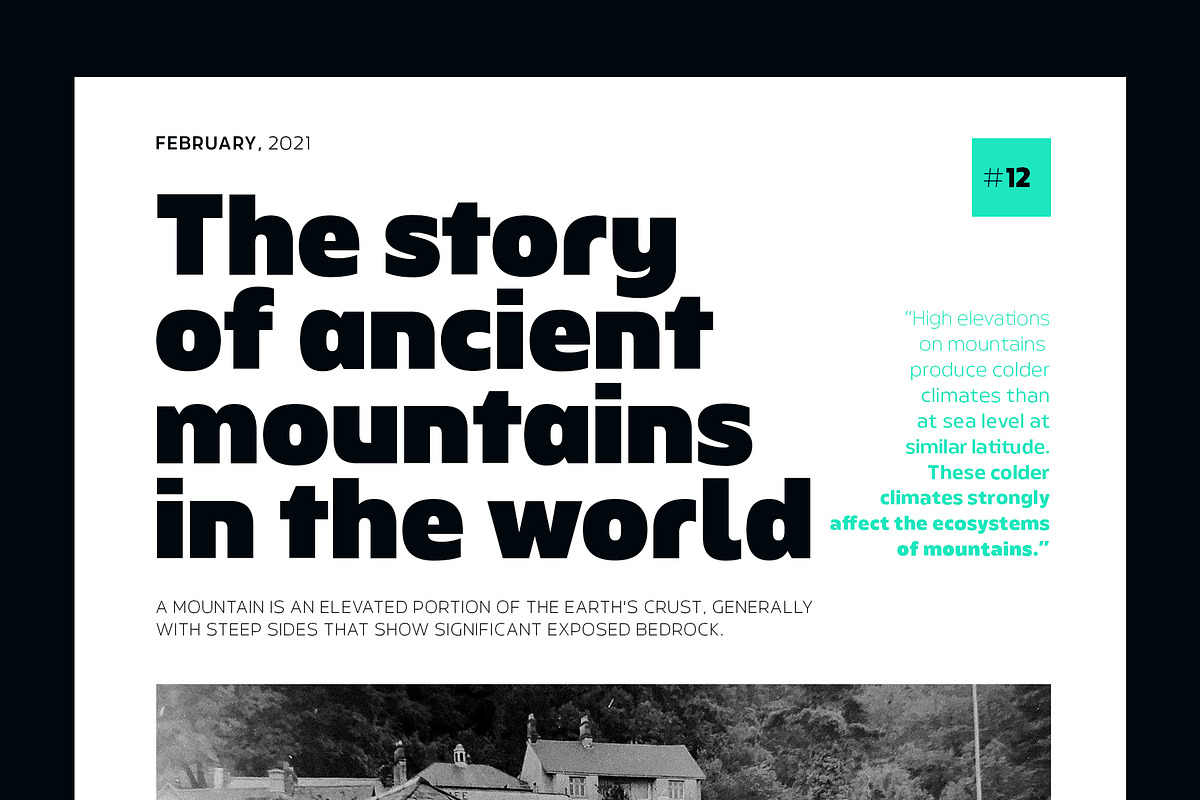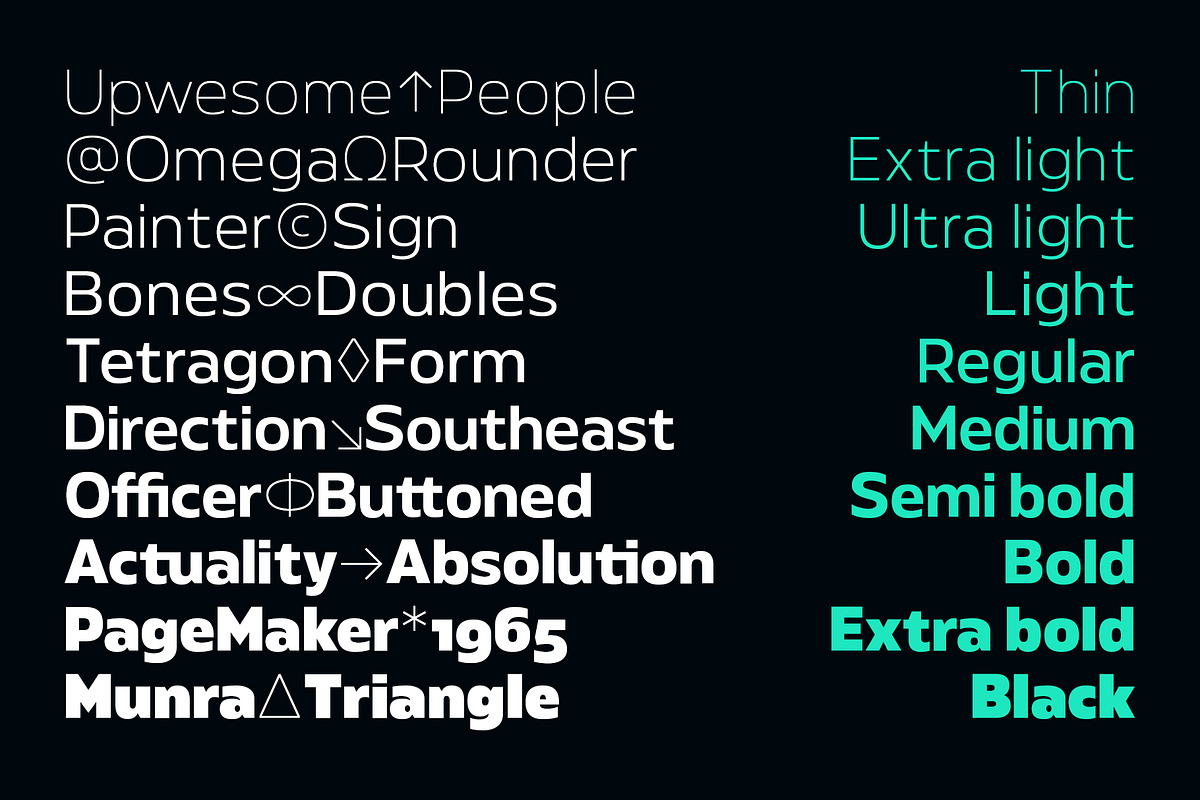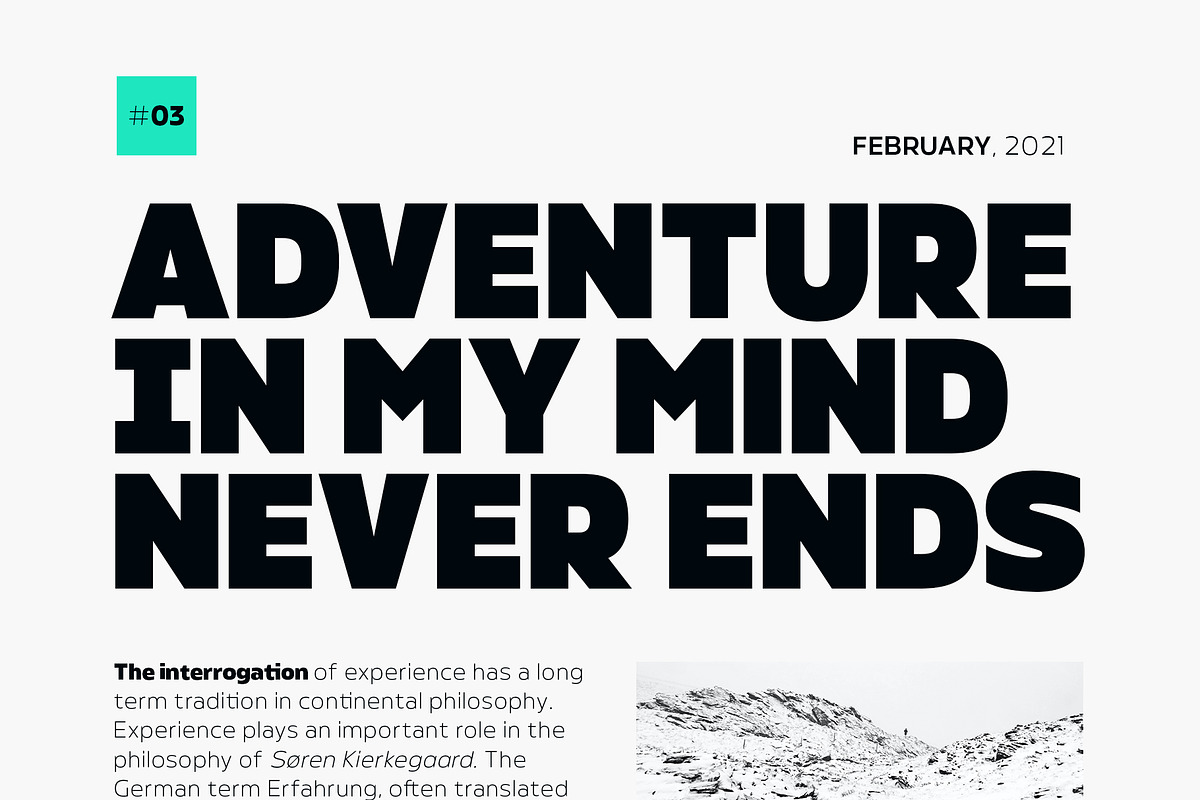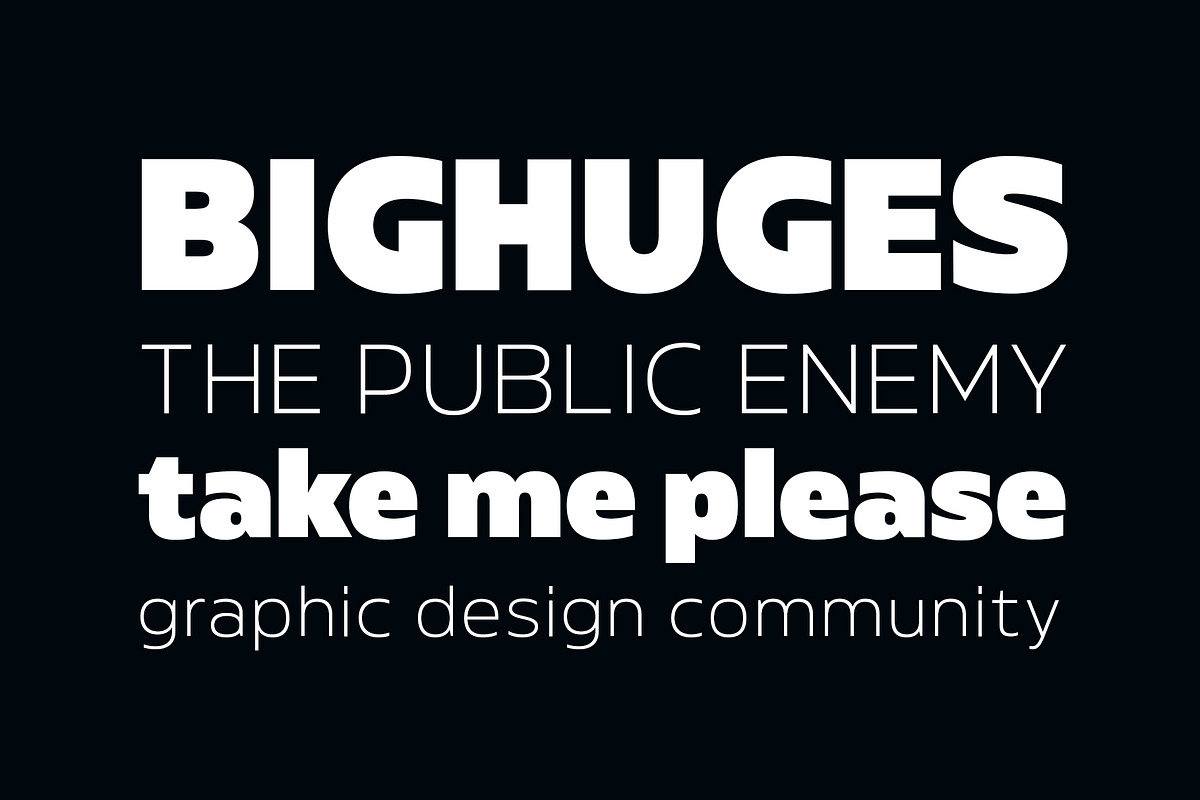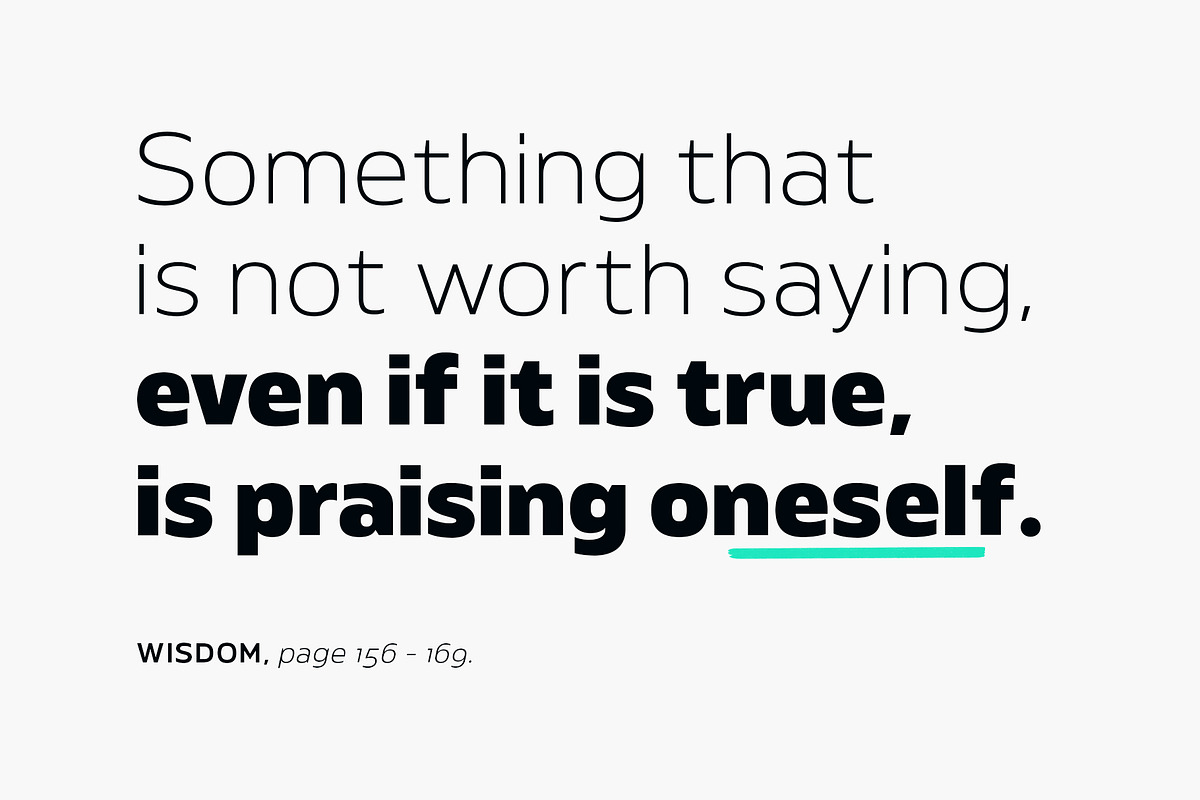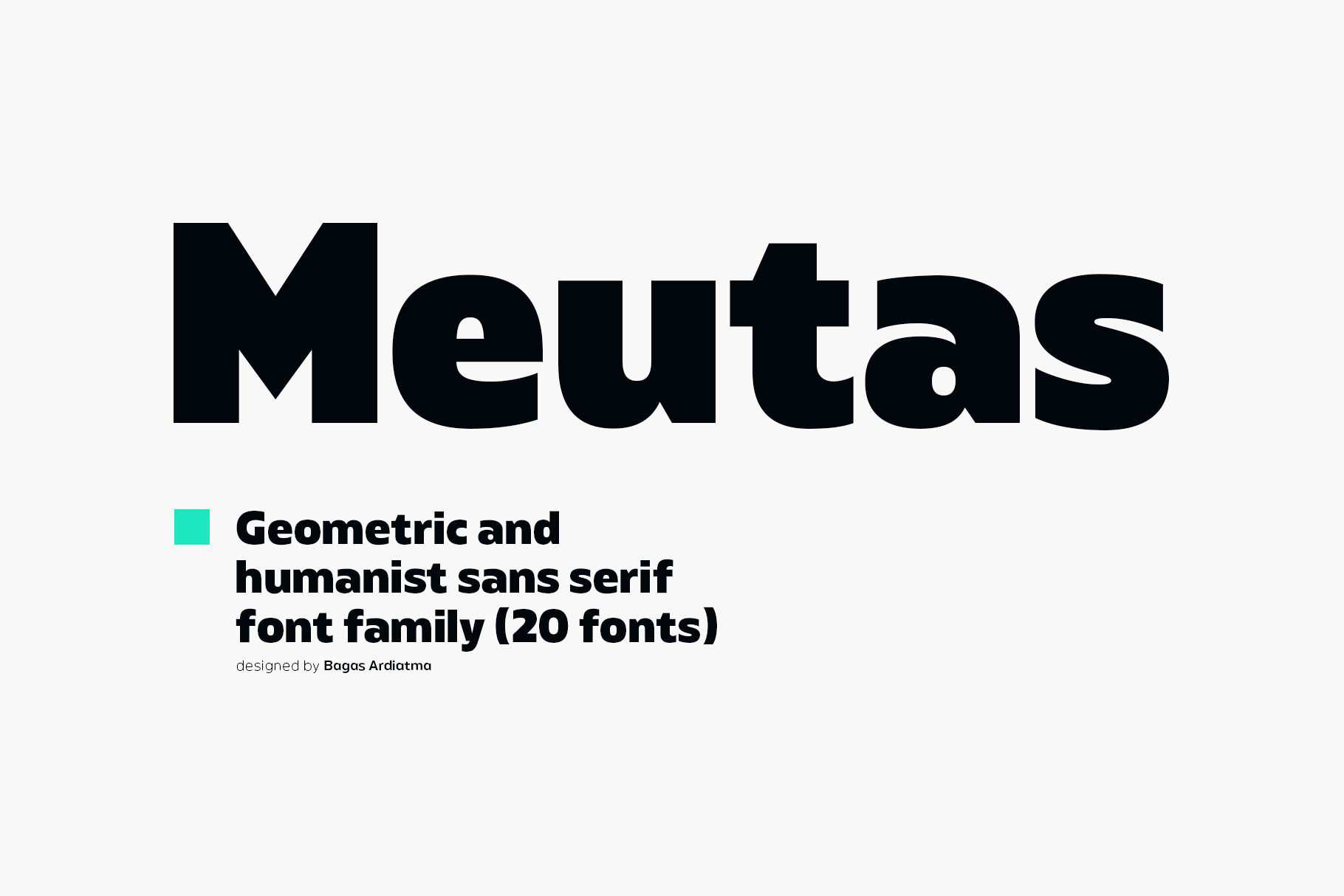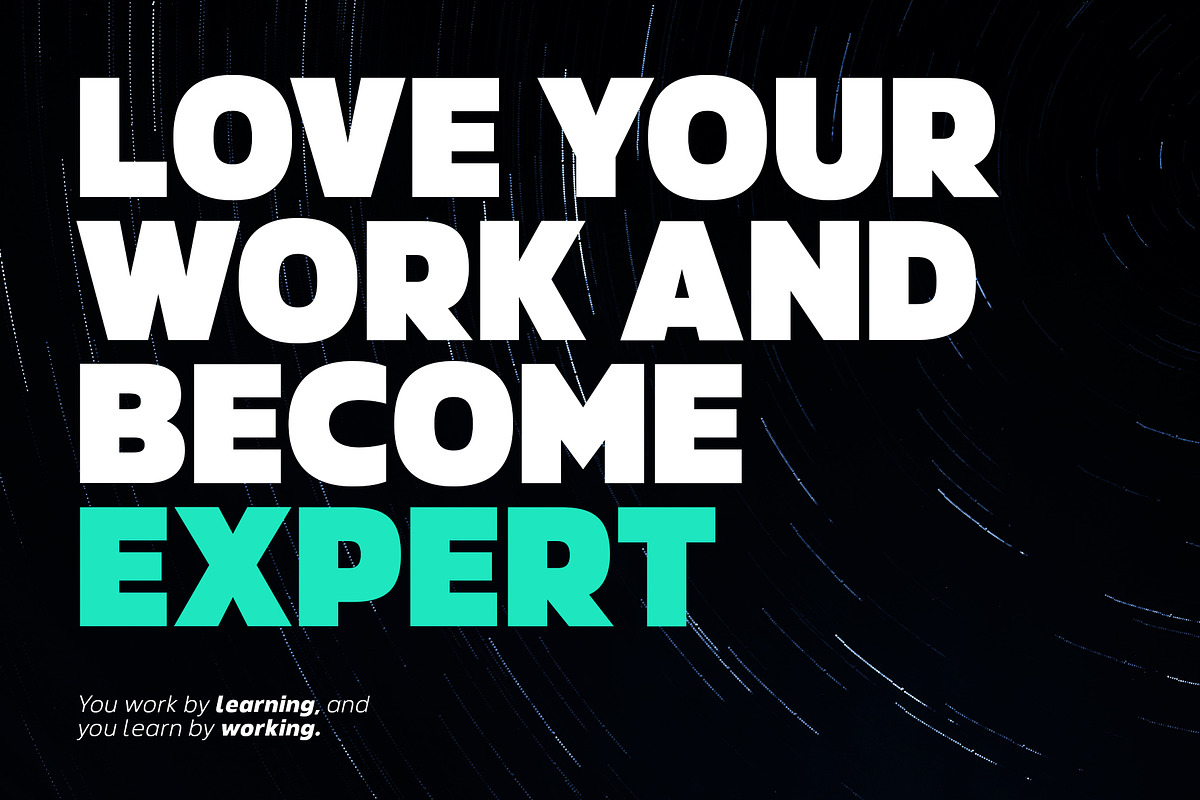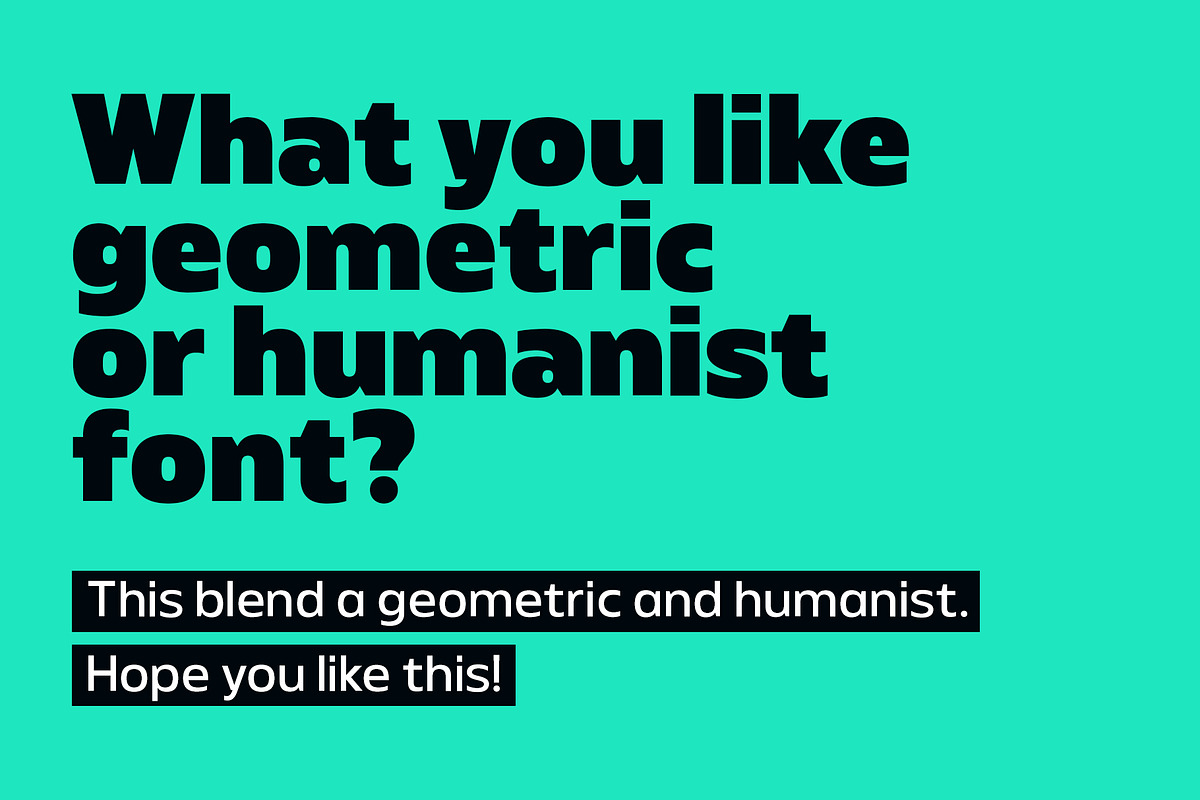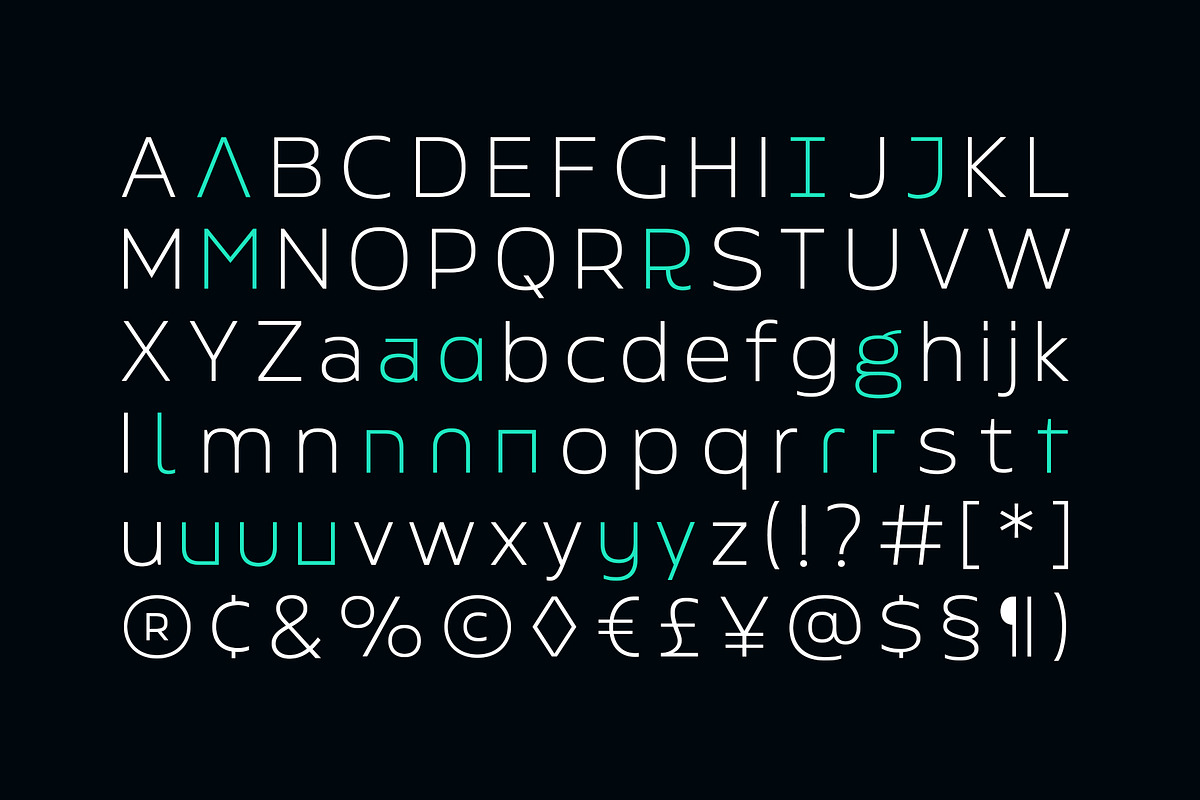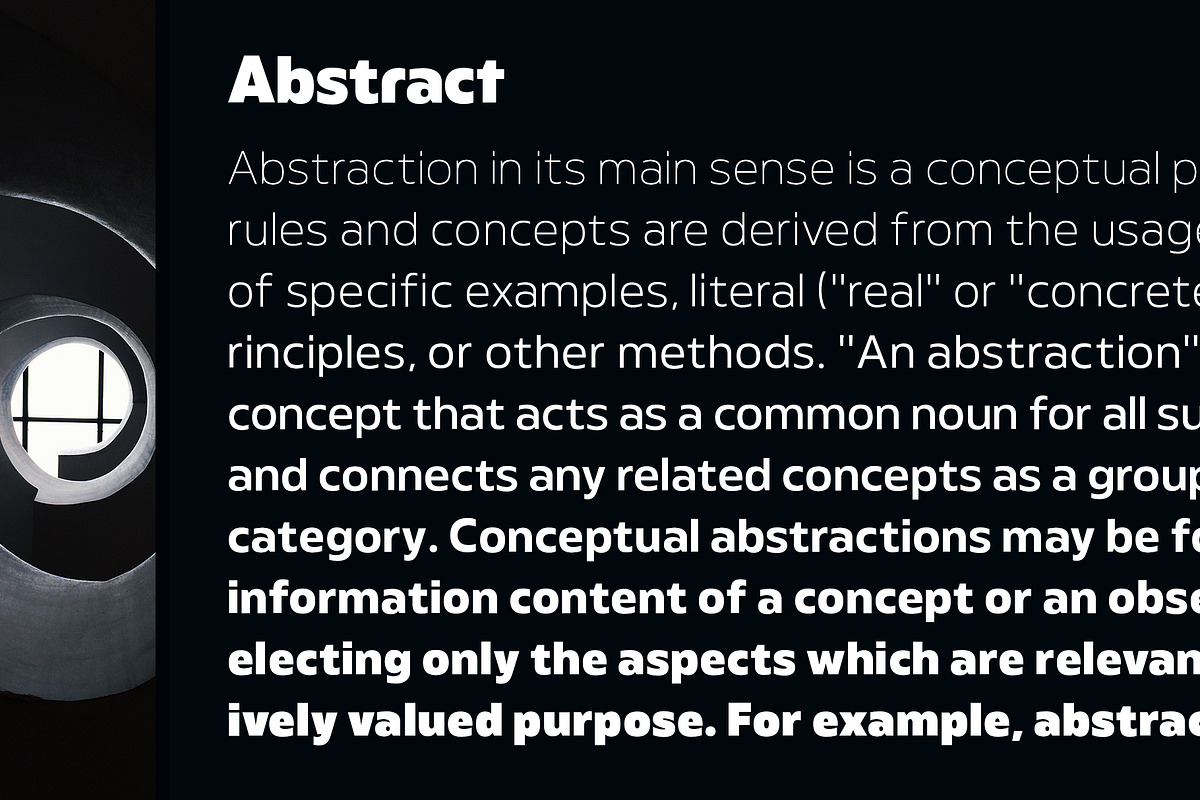
Meutas Font Family
Meutas is a sans serif font family which geometric and humanist make a blend. Make it more attractive and dynamic. Meutas is designed for display and body text. Maximizes thickness while maintaining balance in each form. This makes it especially suitable for all kinds of creative projects.
Meutas comes with 10 weights and a matching oblique, making it 20 styles. Some alternative glyphs will be an attractive choice. Makes every project you work on easier, and will certainly be awesome!
- Punctuation & symbols
- Stylistic Set
- International characters (Multilingual)
- And more